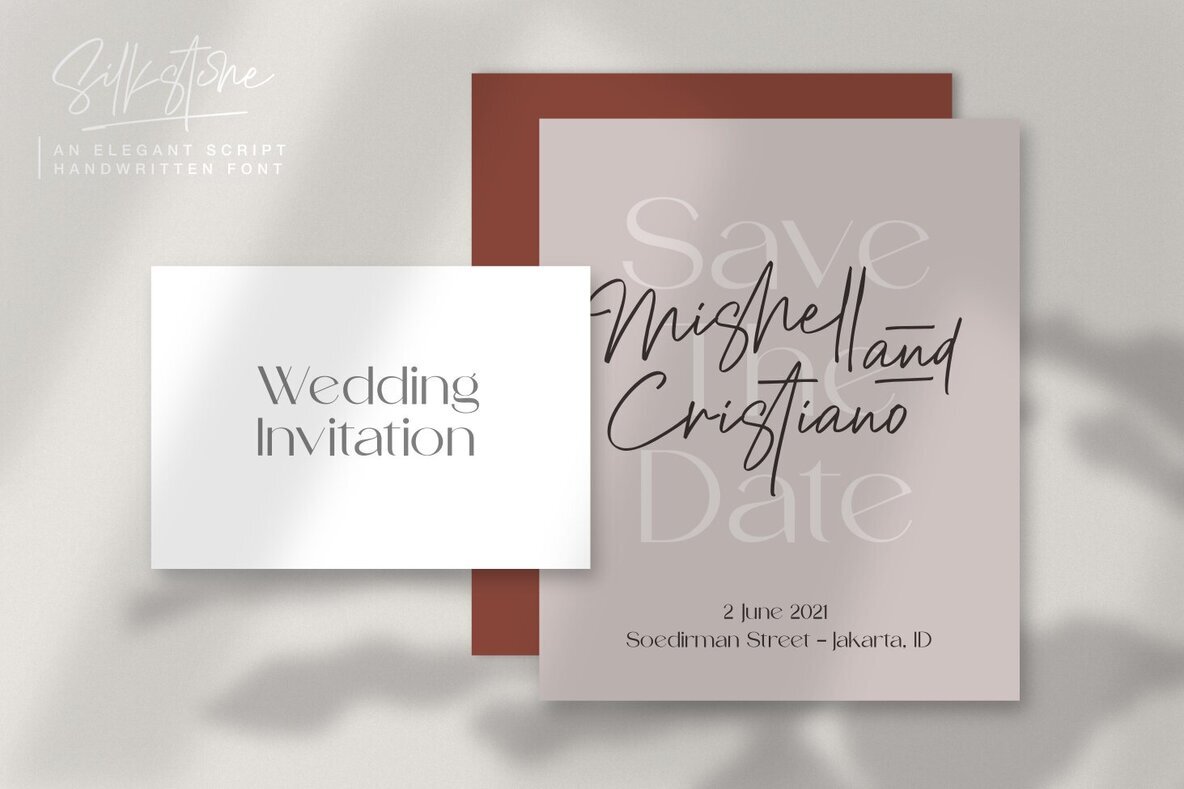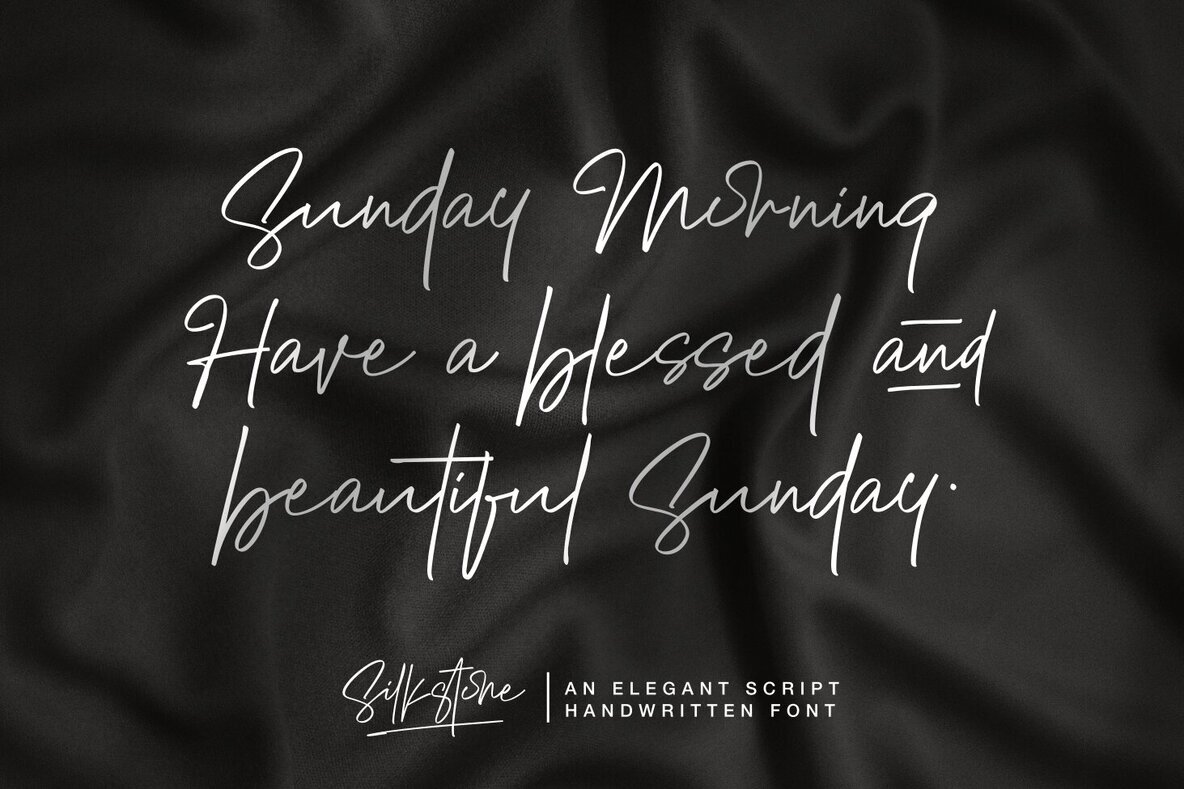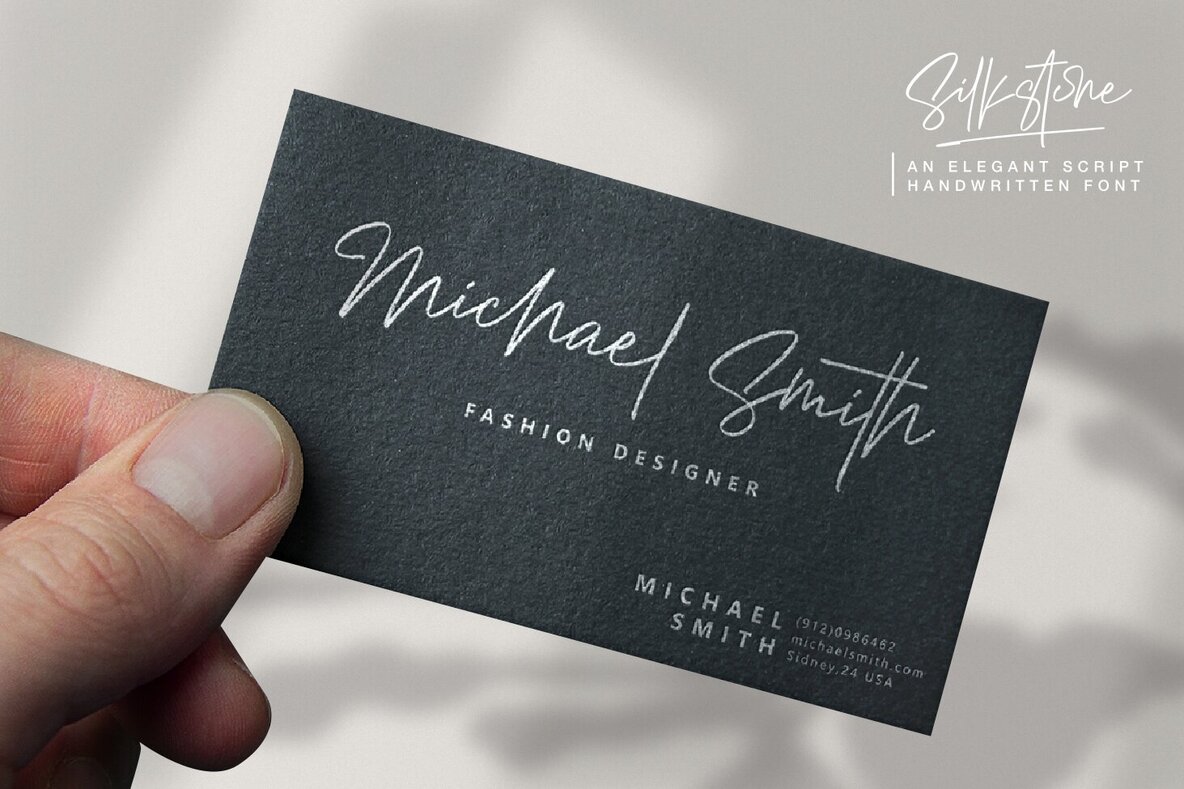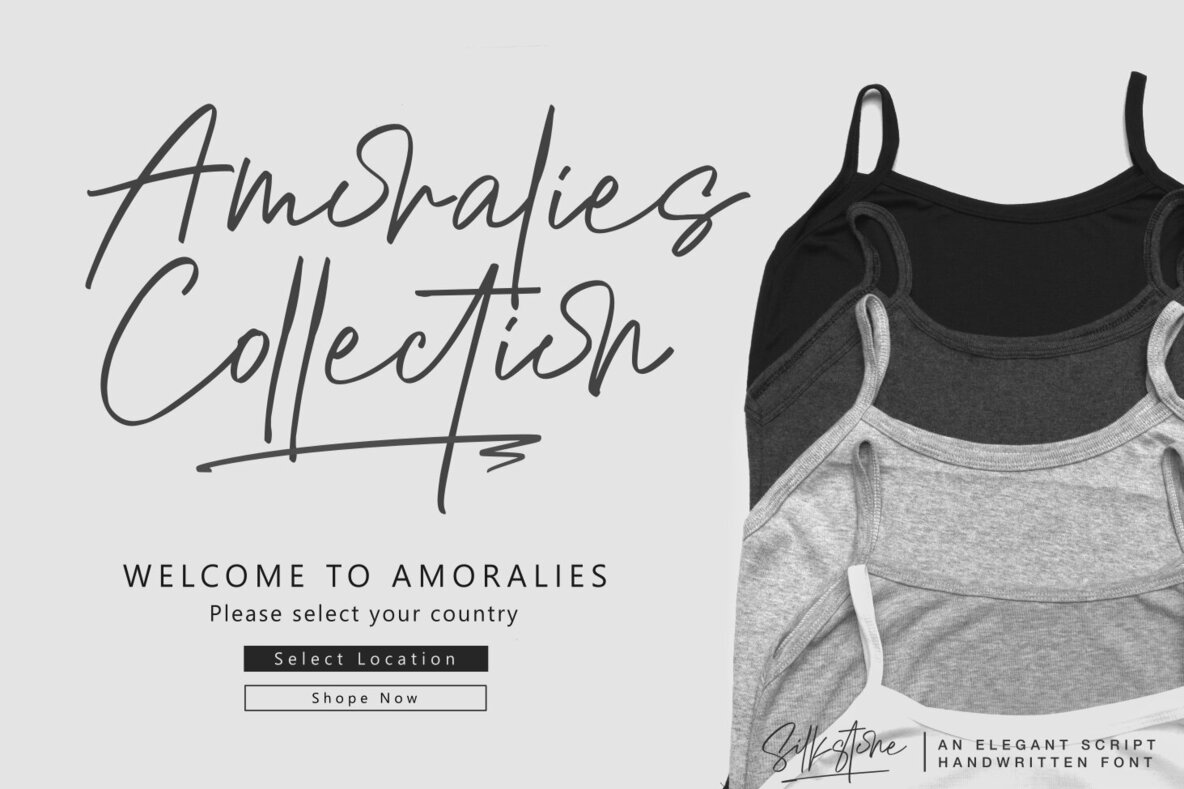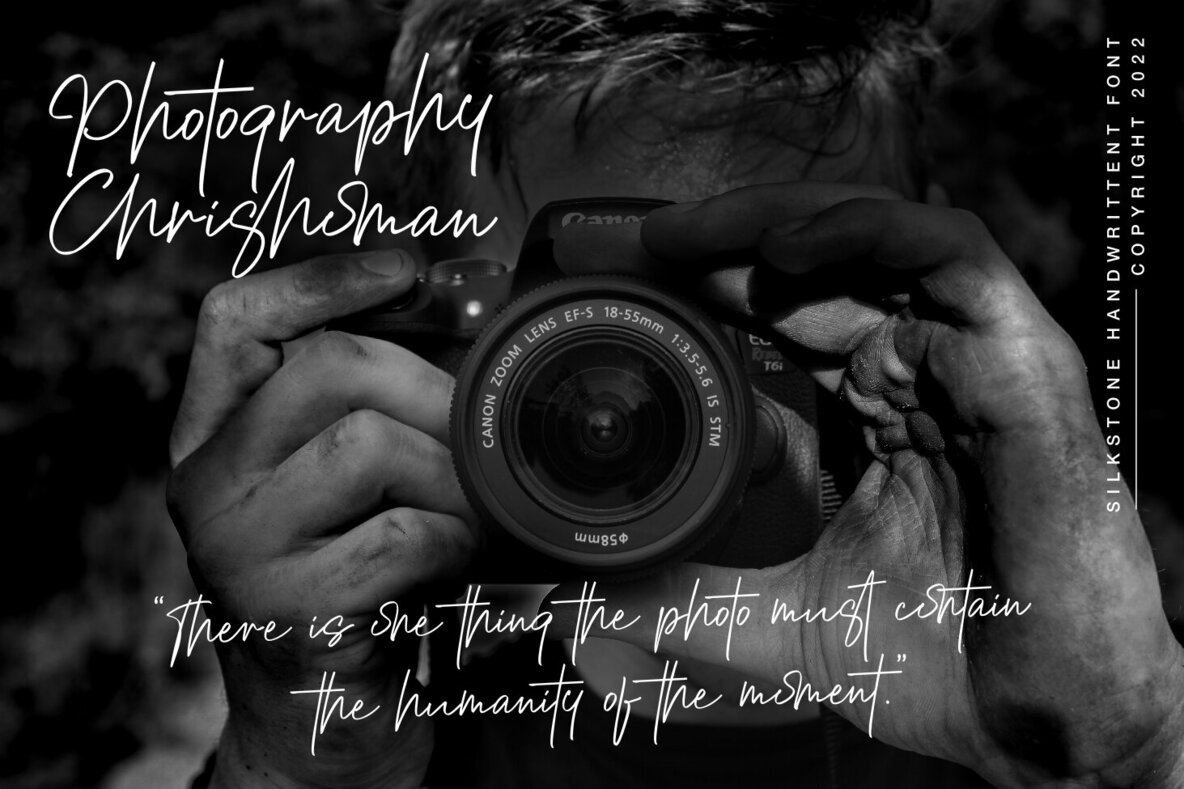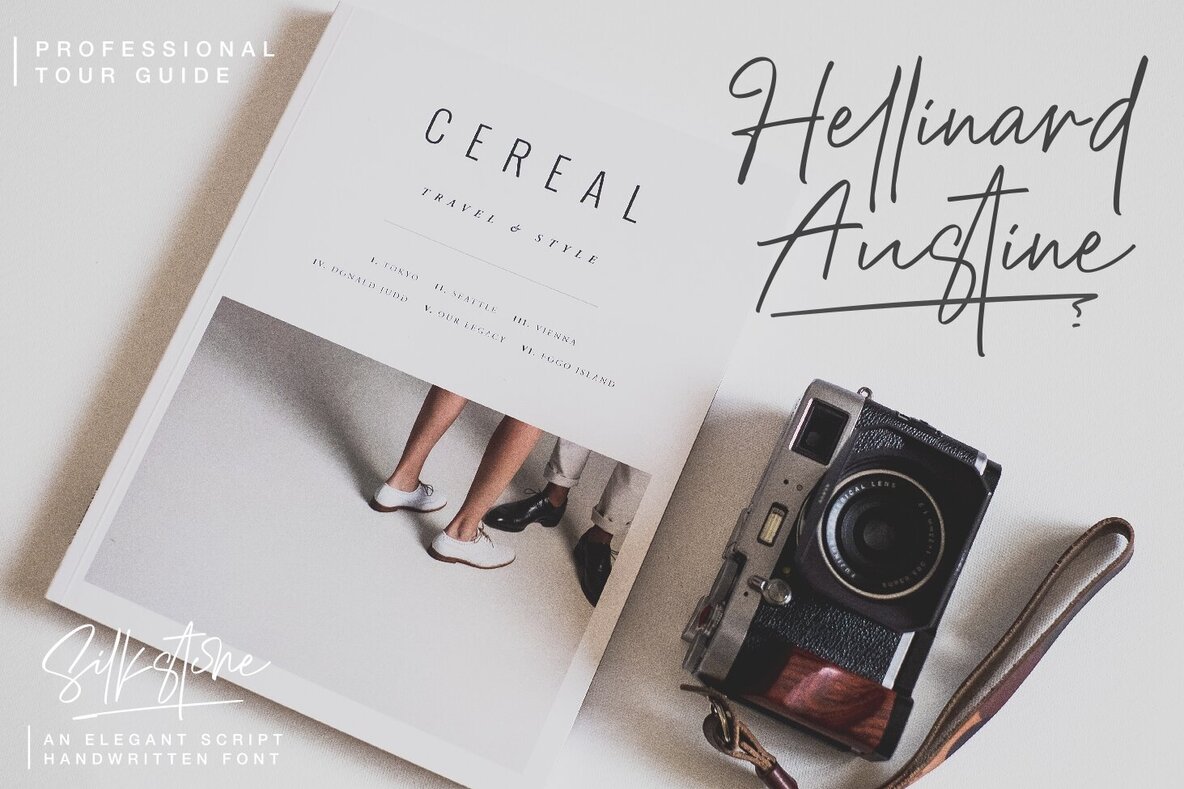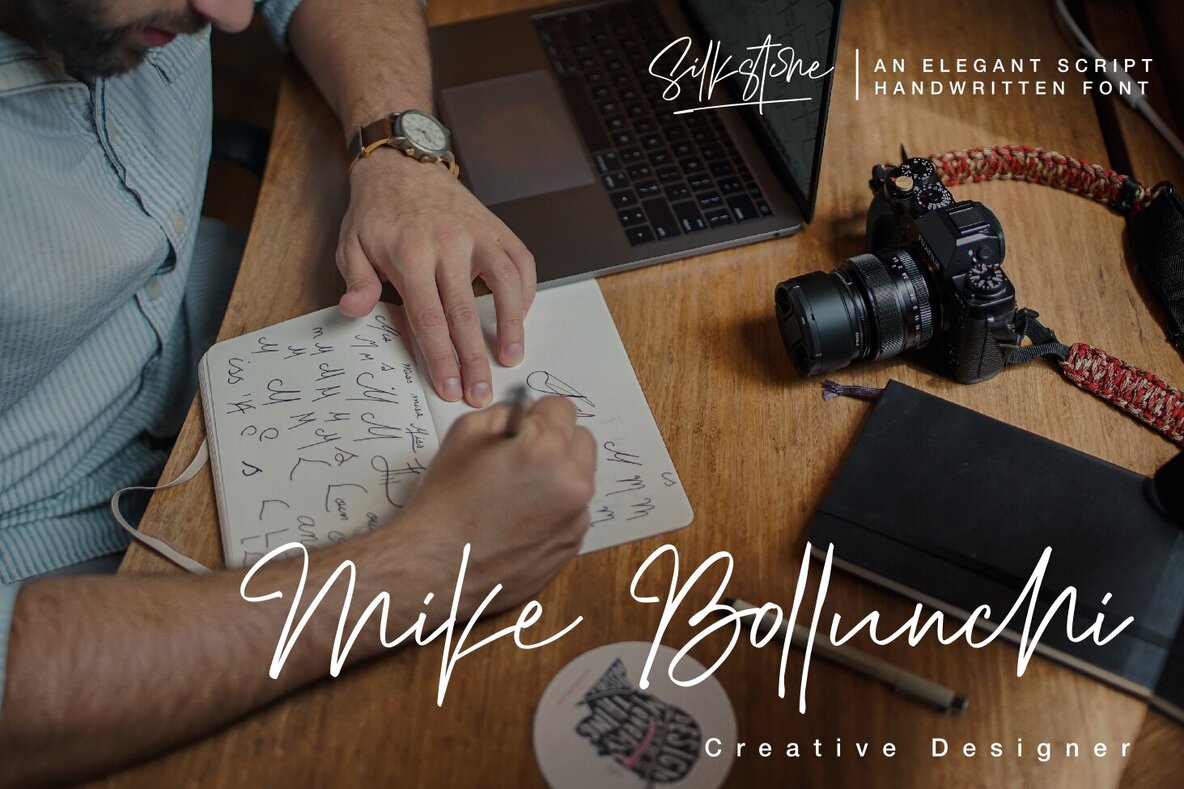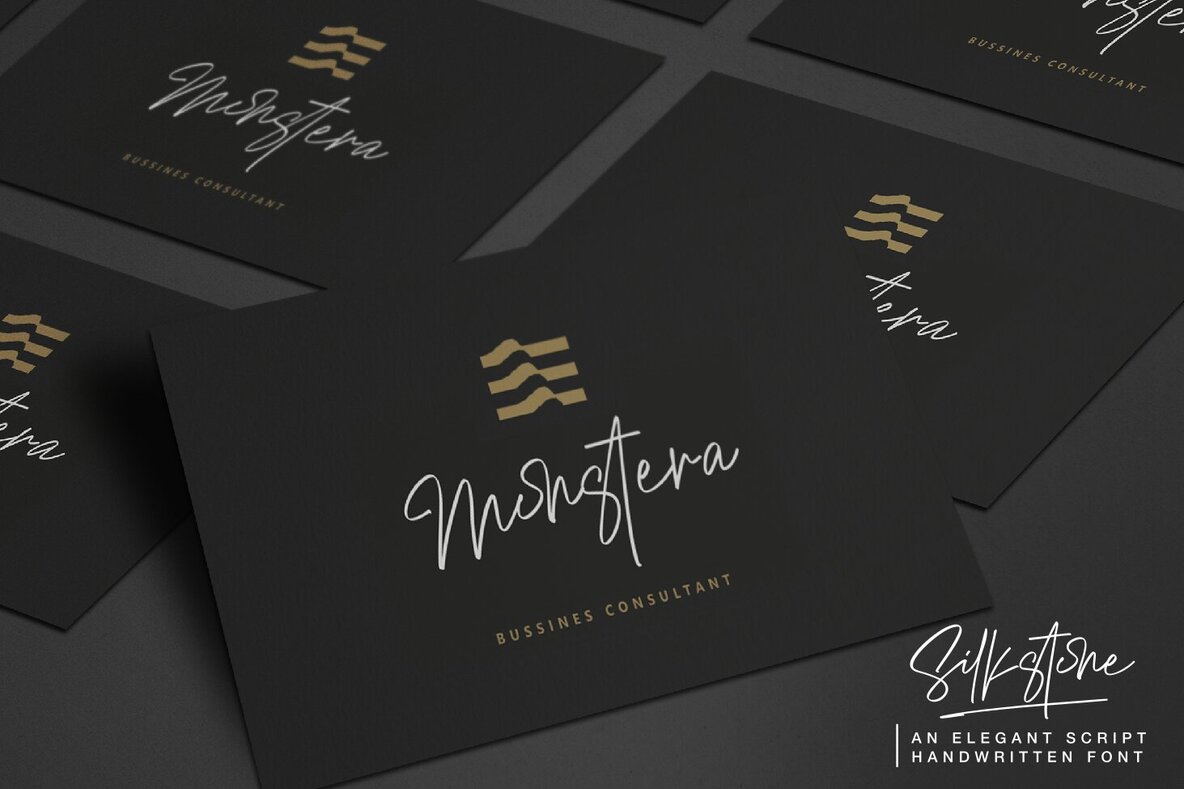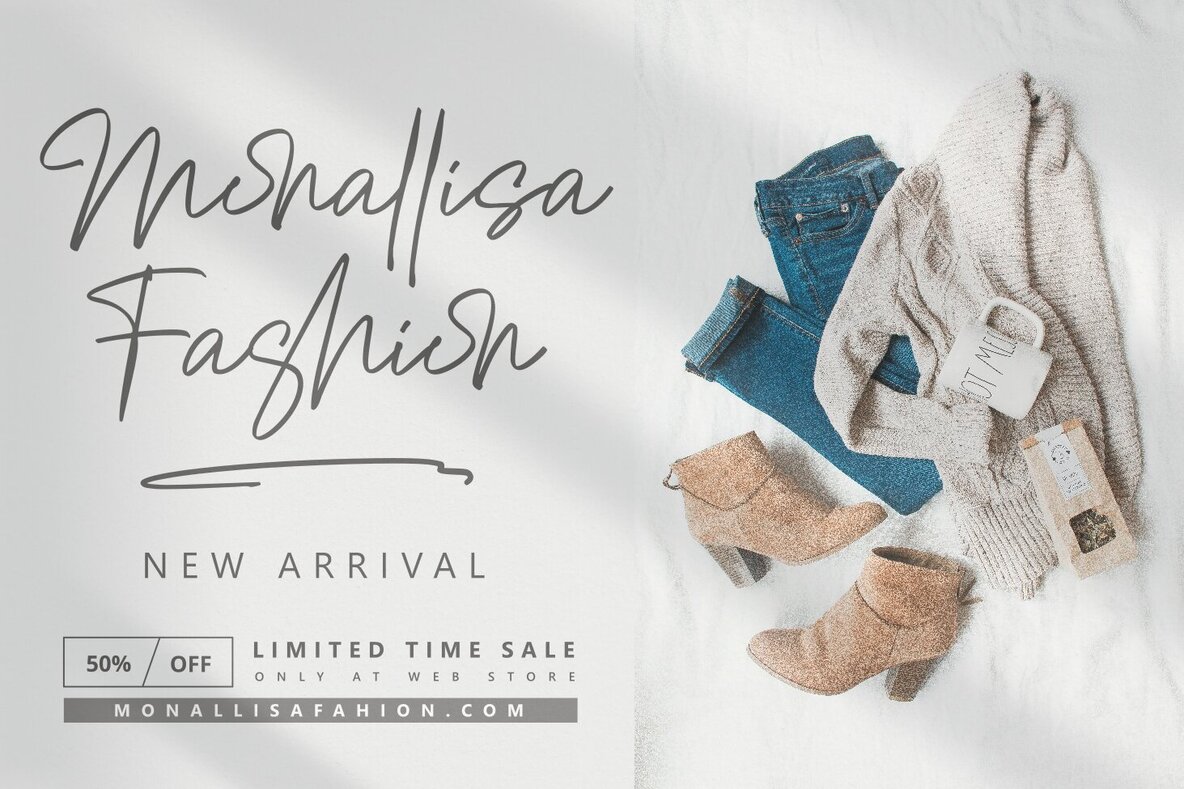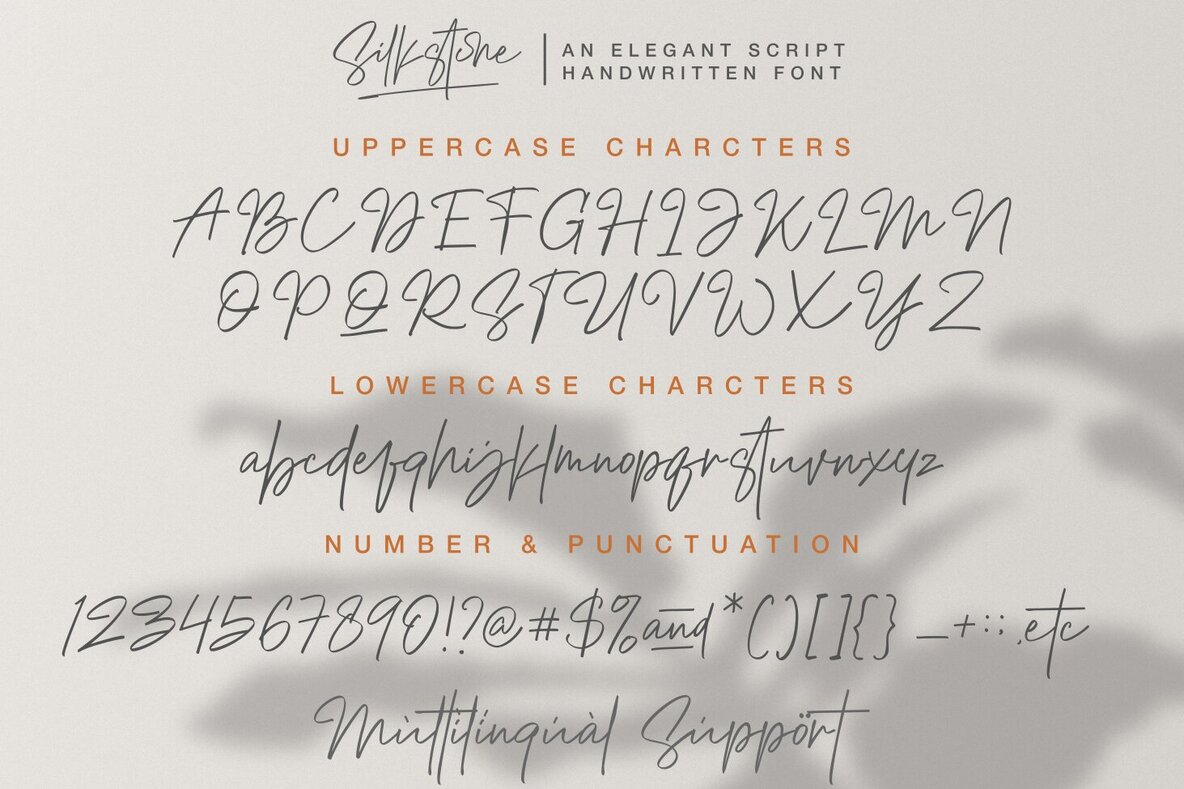
Silkstone Font
Silkstone is a handwritten script font with a simple and classy style. This font is great for your next creative projects such as watermark on photography, logo design, wedding, invitation, quotes, book cover, business card, and many other design projects, from business cards to photo watermarks. Silkstone is PUA encoded, which means you can access all of the glyphs and swashes with ease!